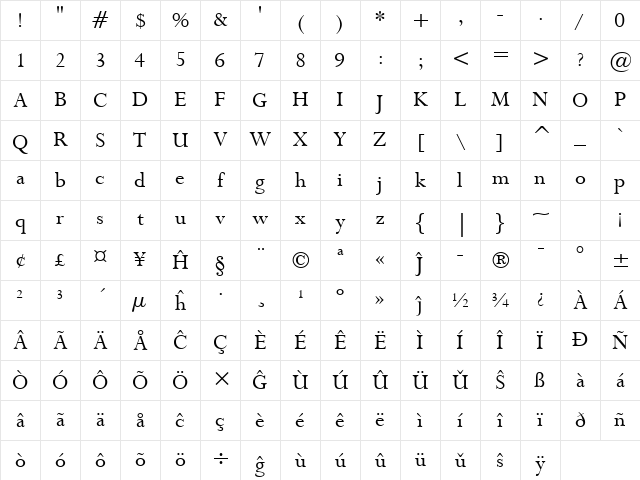
Lapidary333 BT Eo Roman
Complete Lapidary333 BT Eo Roman glyph index. Displaying only characters natively supported by Lapidary333 BT Eo Roman font.
Design Context for Lapidary333 BT Eo
Lapidary333 BT Eo is a composed and adaptable typeface that performs quietly and consistently across a wide range of design contexts.
Pro Tip: Use Lapidary333 BT Eo in both headline and body roles to test its range before committing to a single application.